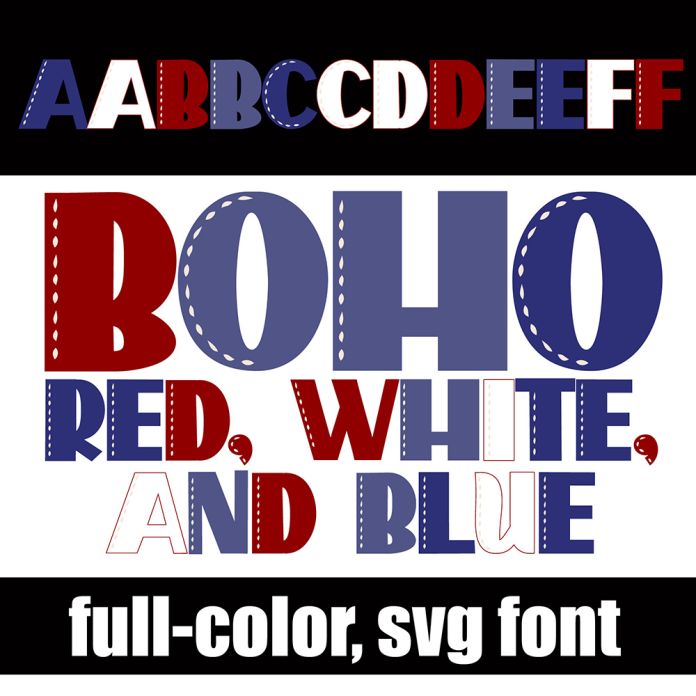
This full-color font features blocky sans serif lettering and white stitches in a patriotic color palette. There is an alt case w/ additional colors you can access through your system or Silhouette's glyph map. This font works best for titles, displays, posters and more. Please note color fonts will show as black in non compatible programs. This font type is compatible with Silhouette Studio.